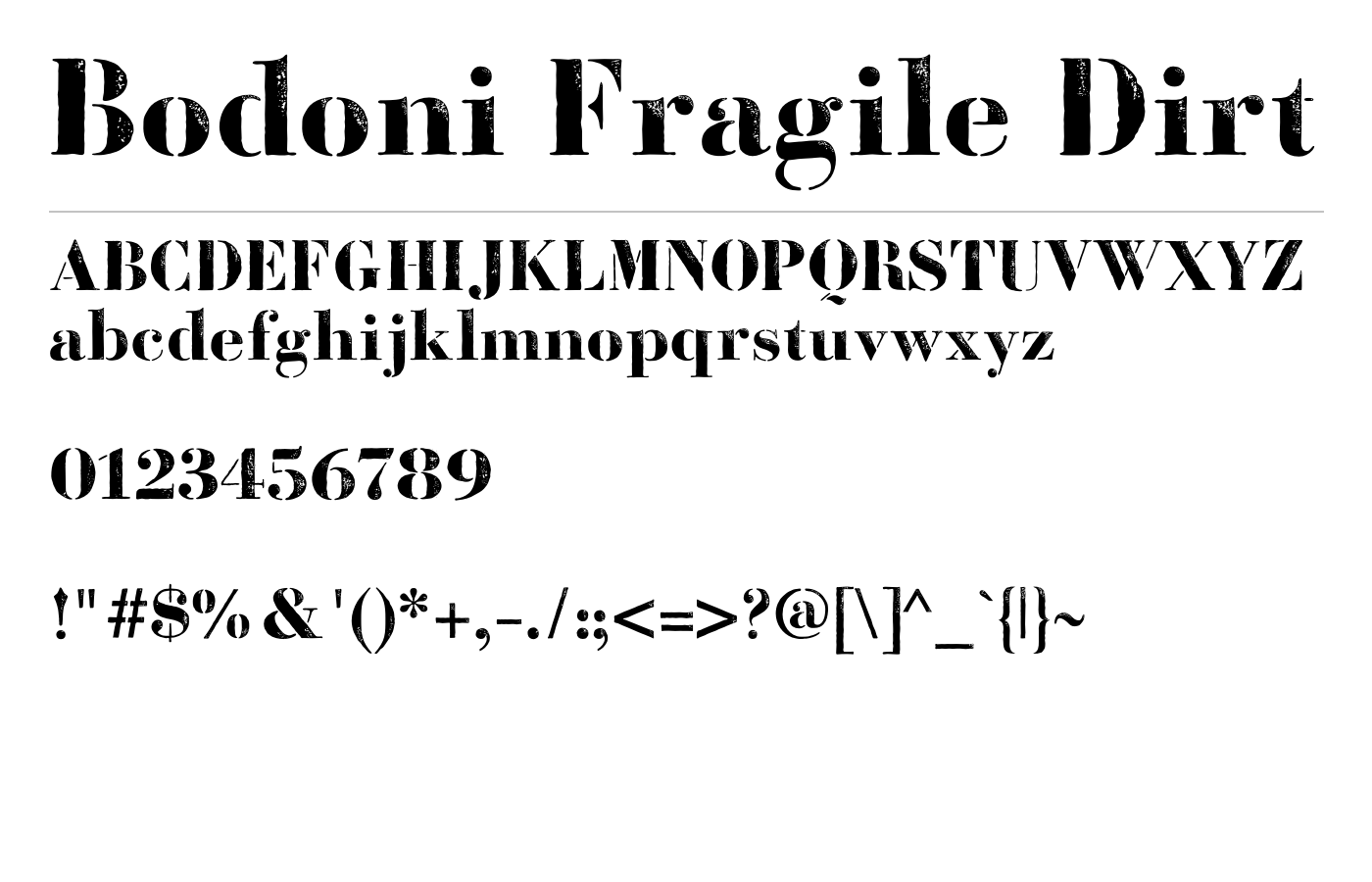
Bodoni Fragile is a distinctive serif font that blends the classic elegance of the Bodoni style with an aged, distressed texture that gives it a rugged, vintage feel. Its strong contrast between thick and thin strokes combined with textured imperfections creates a bold, eye-catching look perfect for edgy, creative branding, editorial headlines, and packaging that demands attention while maintaining a sophisticated charm. This font works best where personality and style are key, adding a unique character to fashion, lifestyle, and artistic projects.
Bodoni Fragile Font
About Bodoni Fragile Font
| Font family | Bodoni Fragile Font |
| Designer | Mario Arturo |